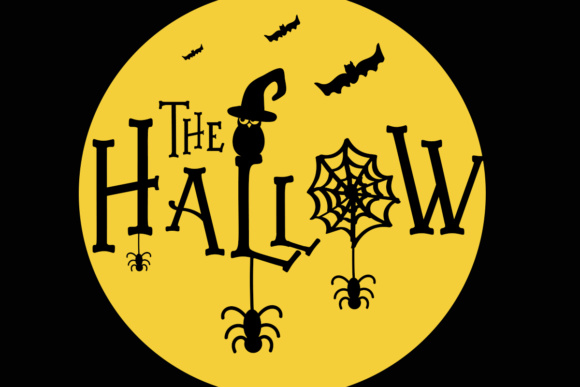
Step into the realm of haunting beauty with The Hallow Font, a serif typeface conjured from the depths of creativity. It brings an eerie charm to your digital designs, making it the ultimate choice for conjuring spine-chilling invitations, hair-raising posters, or hauntingly beautiful logos.
Crafted by the masters of the macabre, Lickable Pixels, The Hallow is a visual treat that exudes a sense of ethereal elegance. Its unbalanced design dances across the page like a mischievous spirit, capturing attention with its playful and fun strokes. Each letterform is a testament to the intricate craftsmanship, boasting a spectral charm that's sure to leave a lasting impression.
With The Hallow Font, unleash your dark imagination and create designs that evoke the thrill of the supernatural. Paint the town blood-red with stunning Halloween posters that send shivers down spines. Transform ordinary invitations into mystical scrolls, inviting guests to a night of enchantment. Let your logo cast a spellbinding aura, captivating customers with its eerie allure.
The Hallow Font is not just a collection of letters; it's a gateway to a realm of boundless creativity. It's the perfect font for conjuring spine-chilling wedding hangers, adding an air of mystique to your most special day. Embrace the allure of the unknown and let The Hallow Font guide you through a journey of chilling aesthetics.
Dare to embrace the darkness and let The Hallow Font unleash your creativity. Let its spectral charm cast a spell on your designs and transport your audience to a world of haunting beauty and macabre elegance. Embrace the power of the supernatural and let your imagination run wild.